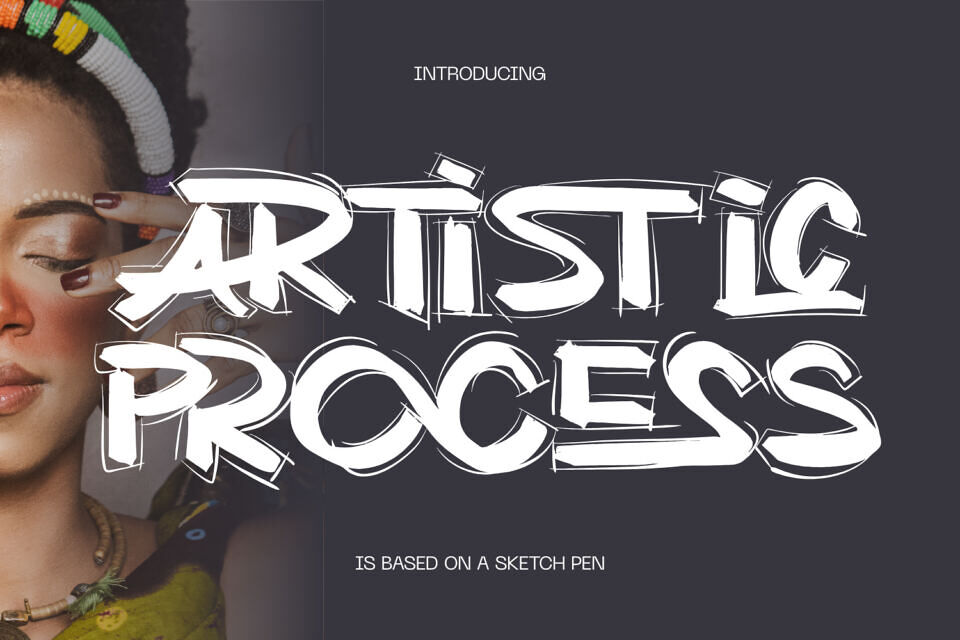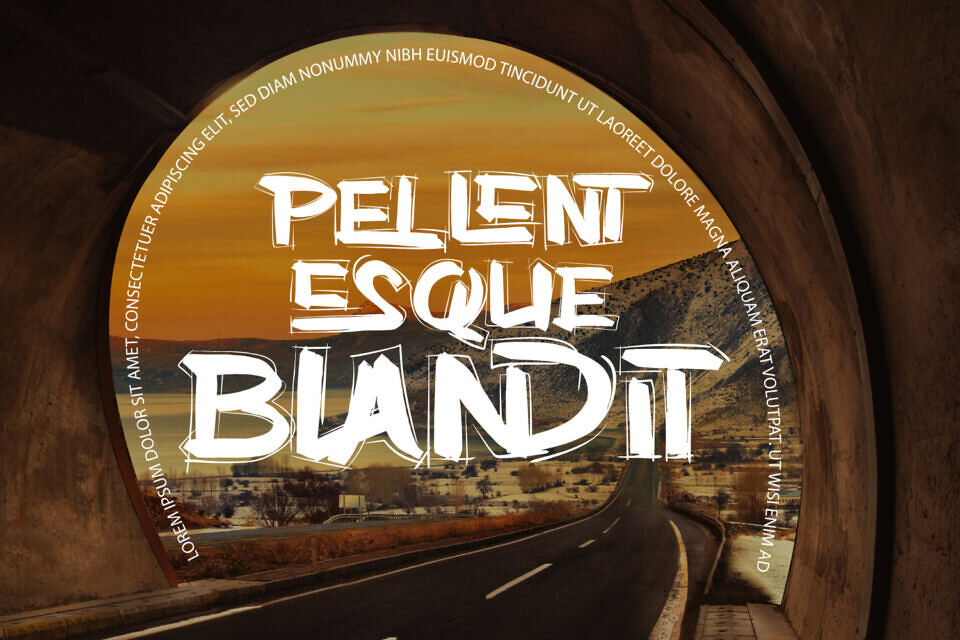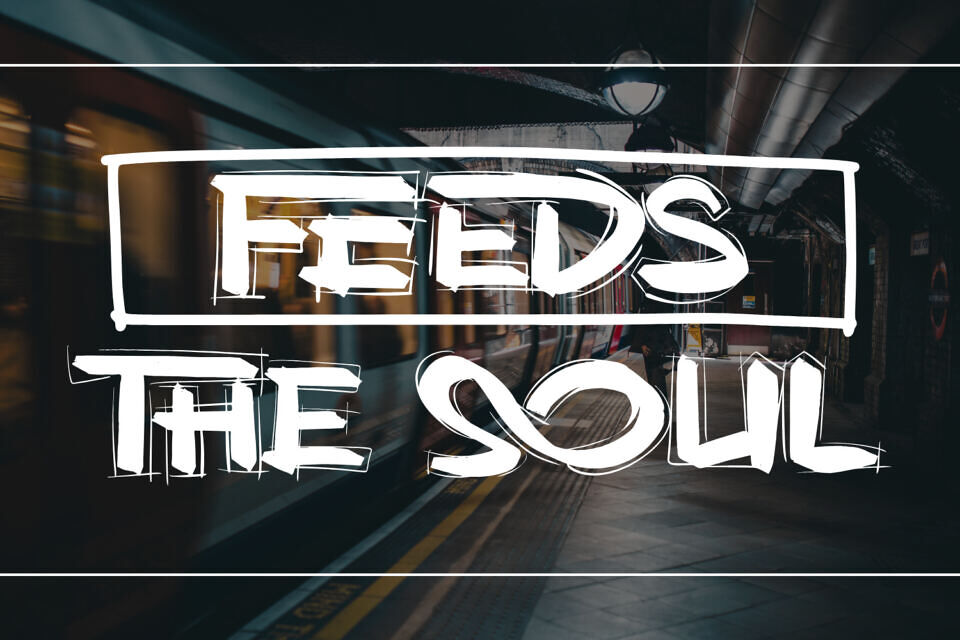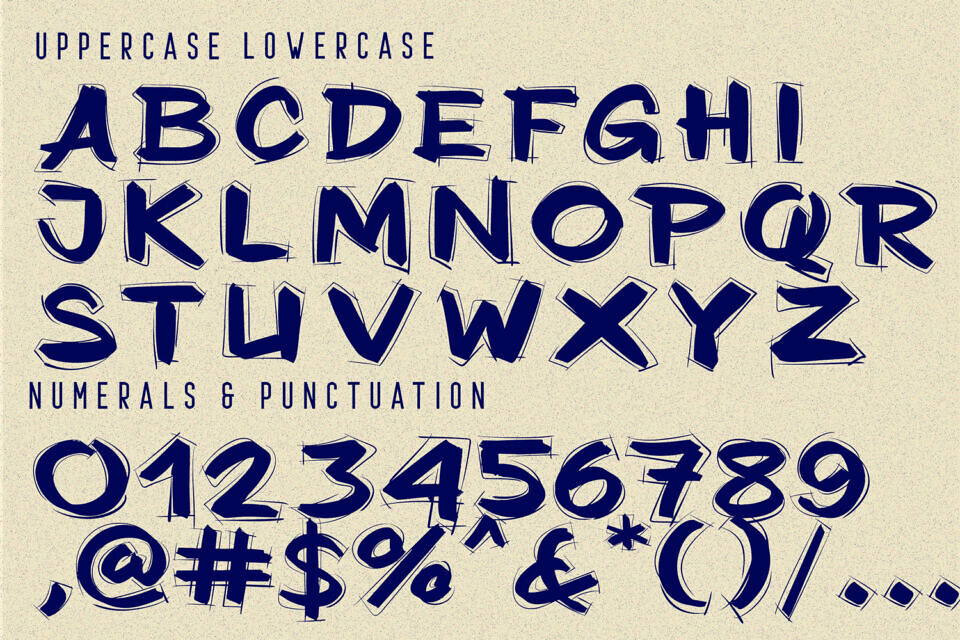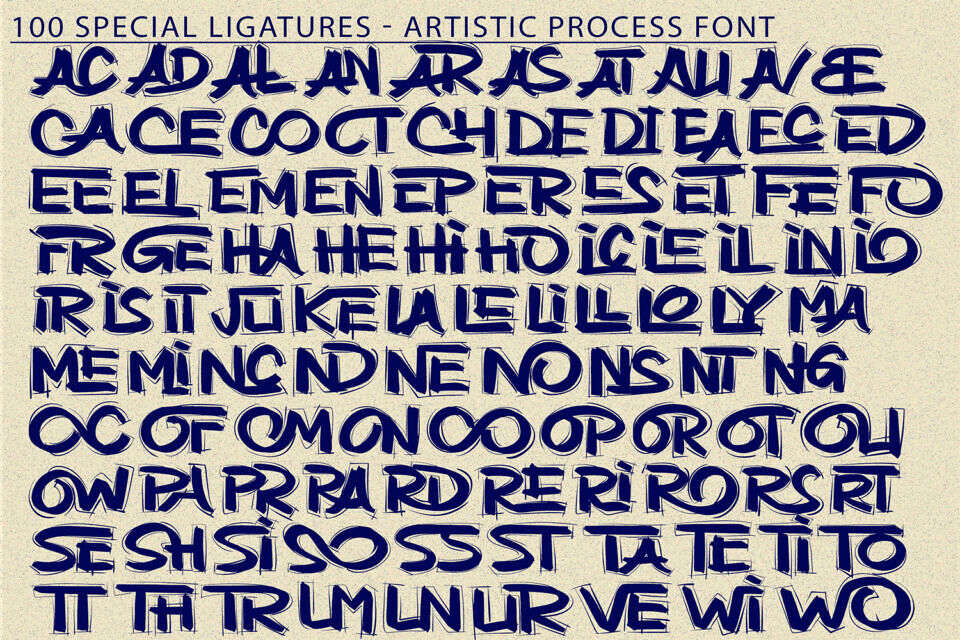
Artistic Process Font
Artistic Process is a bold hand-drawn brush display typeface inspired by urban graffiti, street art, and raw sketch aesthetics. Featuring expressive brush strokes, rough outlines, and dynamic hand-rendered details, this font captures the authentic energy of spontaneous lettering.
Its sketch-inspired texture and bold brush forms make it perfect for streetwear branding, music posters, album covers, social media graphics, and urban-inspired creative projects. Artistic Process is the perfect choice for designs that demand attitude, movement, and unapologetic visual impact.